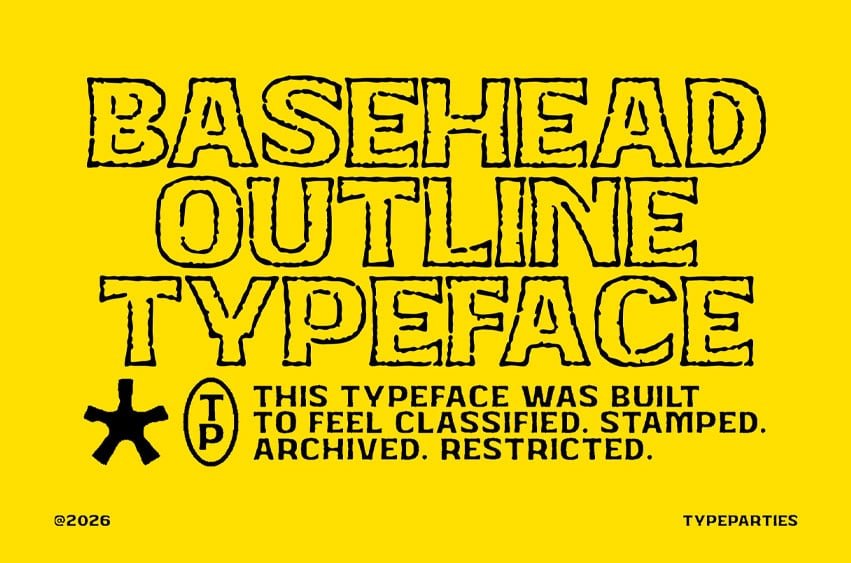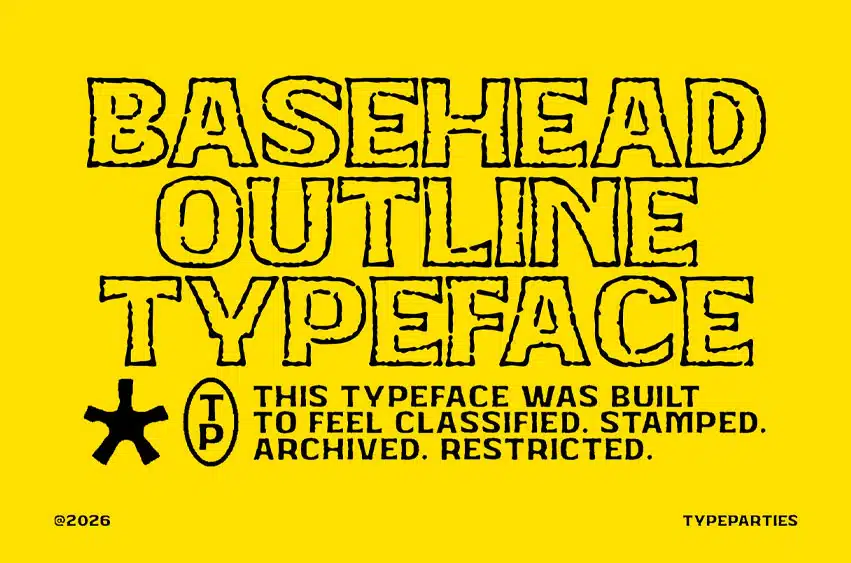
Basehead Outline Font is a bold display sans serif typeface built to echo the raw authority of official documents, stamped case files, and underground press prints.
It carries a distressed ink texture with slightly uneven contours, giving every letter a tactile, imperfect edge that feels real and unapologetic.